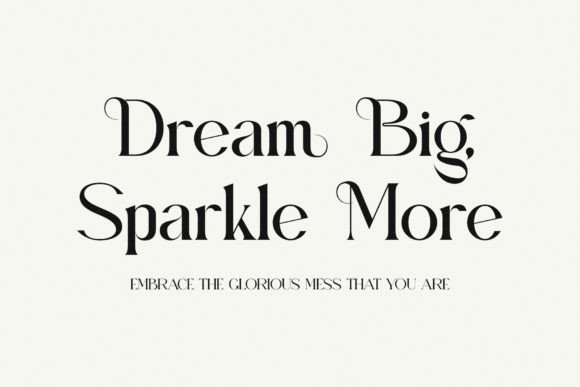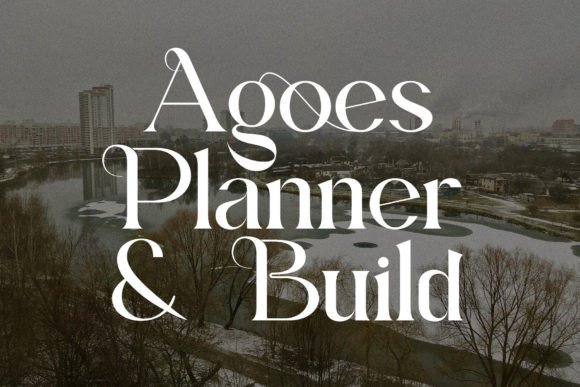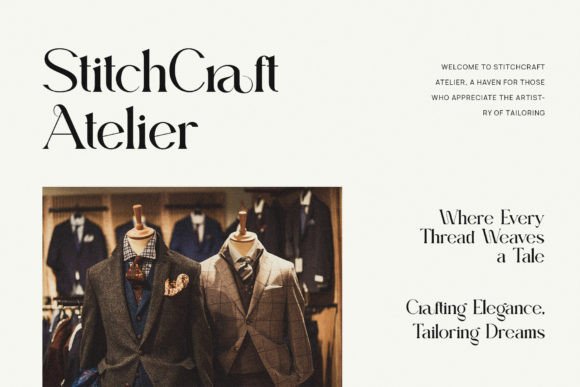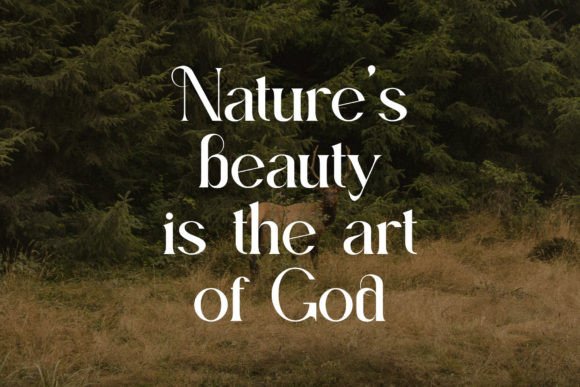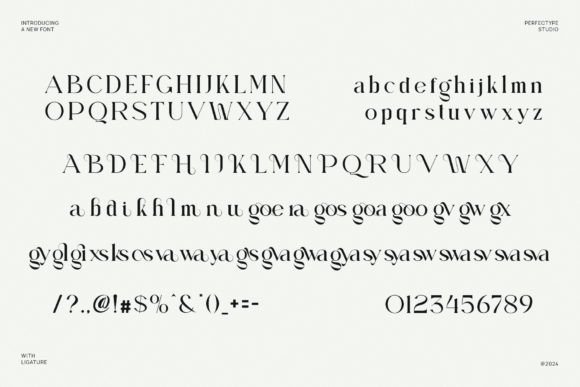
Bigoera Font: Elevate Your Designs with Elegance and Sophistication
In the world of typography, a well-crafted font can make all the difference in elevating your designs to the next level. Introducing Bigoera Font, an elegant serif typeface that combines classic sophistication with modern style. This versatile font is designed to meet the diverse needs of designers, crafters, and artists, making it an ideal choice for a wide range of projects.
Unparalleled Elegance and Versatility
Bigoera Font boasts a unique blend of traditional and contemporary elements, resulting in a refined and sophisticated aesthetic. Its elegant serif design exudes luxury and poise, making it perfect for high-end branding projects, logos, wedding designs, and social media posts. Whether you’re creating advertisements, product packaging, labels, or photography watermarks, this font is sure to impress.
• PUA Encoding: Bigoera Font is PUA encoded, allowing you to access a vast array of glyphs and ligatures with ease. This feature enables you to create complex and visually appealing designs without the hassle of glyph substitution.
• High Readability: Designed with readability in mind, Bigoera Font ensures that your message is conveyed clearly and effectively, regardless of the medium or platform.
• Classy and Modern Style: This font seamlessly blends traditional and modern elements, making it suitable for a wide range of design applications, from classic wedding invitations to modern product designs.
• Multipurpose: Bigoera Font is an excellent choice for various design projects, including branding, logos, social media posts, advertisements, product packaging, labels, photography, watermarks, invitations, stationery, and more.
Applications and Use Cases
Bigoera Font’s versatility makes it an excellent choice for various design applications. Here are a few examples:
• Branding and Logos: Create a lasting impression with a custom logo or brand identity that exudes elegance and sophistication.
• Wedding Designs: Add a touch of luxury and romance to your wedding invitations, stationery, and decorations.
• Social Media Posts: Elevate your social media presence with eye-catching graphics and typography that sets you apart.
• Advertisements: Create captivating ads that grab attention and leave a lasting impression.
• Product Packaging: Stand out on store shelves with beautifully designed packaging that reflects your brand’s personality.
Why Choose Bigoera Font?
In a crowded marketplace, it’s essential to choose a font that not only meets your design needs but also elevates your brand’s identity. Bigoera Font offers:
• Unique and Distinctive Design: Stand out from the crowd with a font that boasts a unique blend of elegance and modernity.
• High-Quality Typography: Experience exceptional readability and aesthetic appeal, ensuring your message is conveyed effectively.
• Flexibility and Versatility: Use Bigoera Font across various design applications, from digital to print, without compromising on style or quality.
Bigoera Font is an exceptional addition to any designer’s toolkit, offering an unbeatable combination of elegance, sophistication, and versatility. Whether you’re a seasoned professional or an aspiring craftsperson, this font is sure to elevate your designs and help you achieve your creative goals. With its PUA encoding, high readability, and classy modern style, Bigoera Font is the perfect choice for a wide range of projects. Experience the power of beautiful typography and take your designs to new heights with Bigoera Font.